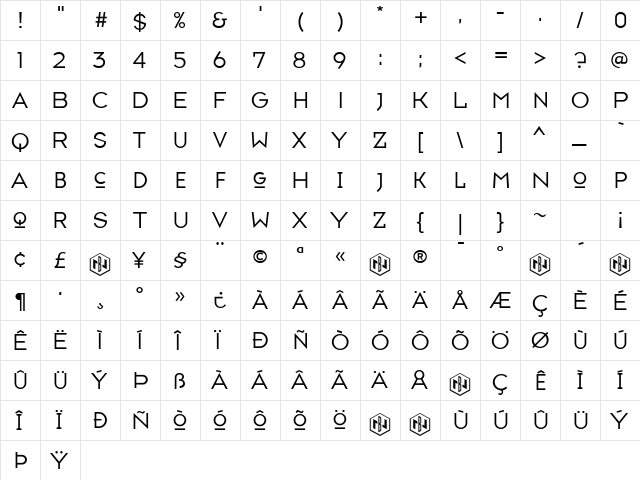
TypefaceSeven Regular
Design Context for TypefaceSeven Typeface
TypefaceSeven takes a measured approach to typography — its balanced proportions and neutral character make it a reliable workhorse for both digital and print work.